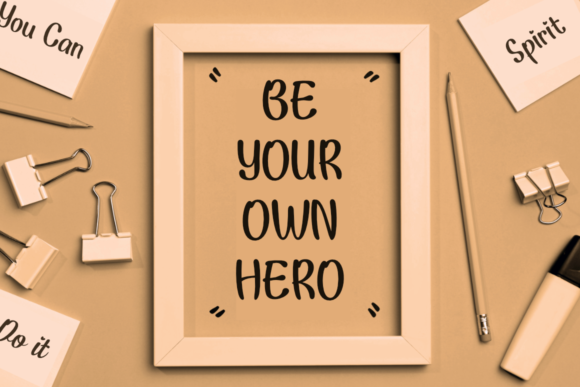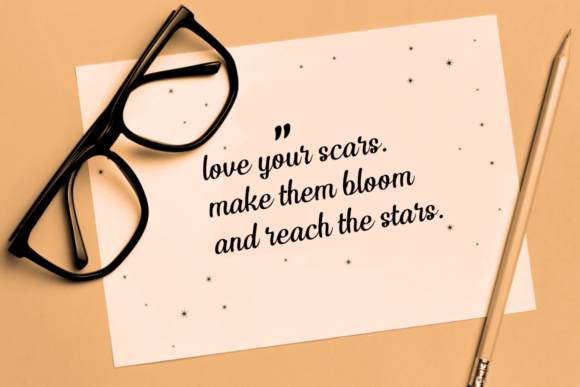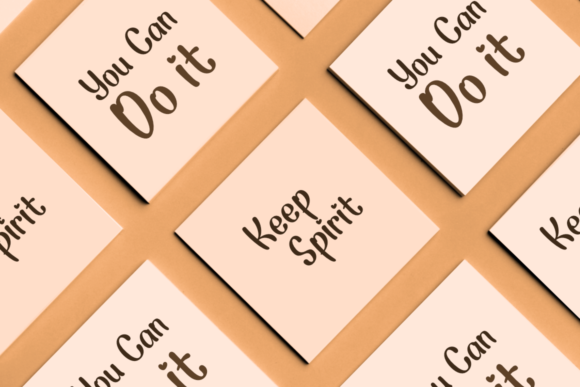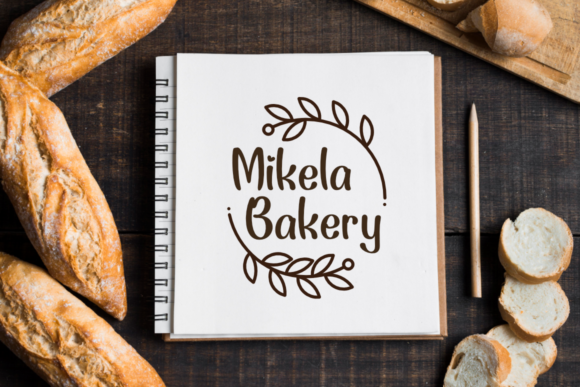
Sweet Honeybee Font
About Sweet Honeybee Font
Sweet HoneyBee is a cute and flowing handwritten font. It is incredibly adaptable and friendly and it will match a wide range of projects, both formal and informal. Your imagination is the limit to your creations.